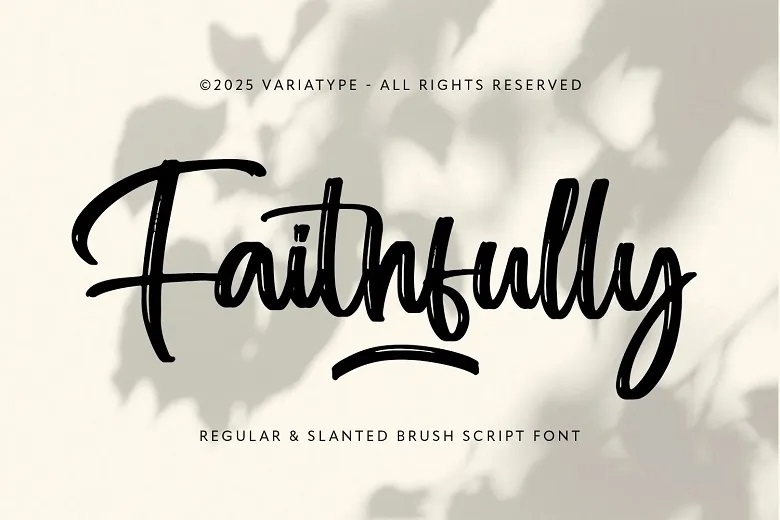
Faithfuly Font
Faithfully is a natural brush script font created to offer warmth, personality and authenticity to your crafts. Its expressive strokes and natural hand crafted style generate a truthful, personal look that adds emotion and life to any project.
It comes in both oblique and regular styles offering a flexible rhythm that looks free flowing yet carefully designed. This font works well for packaging, branding, logos, quotes, apparel, social media graphics and other design projects that need a hand written touch with a strong visual impact.
Faithfuly Brush Font